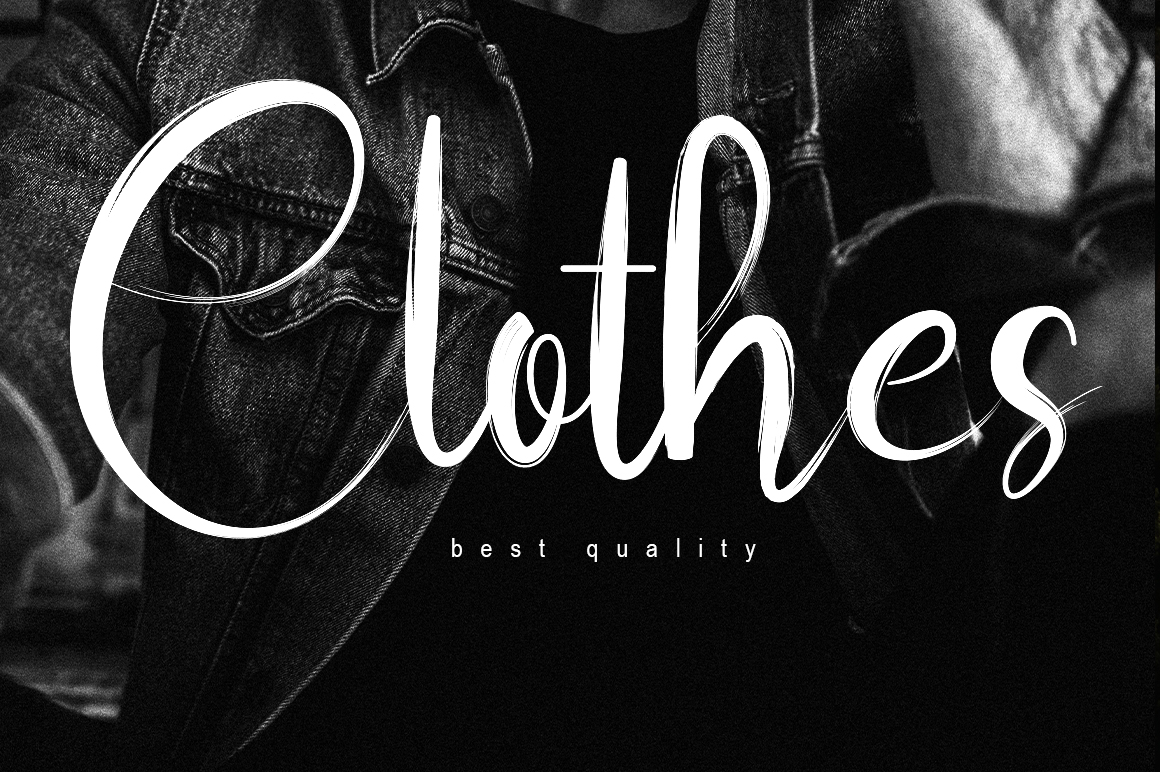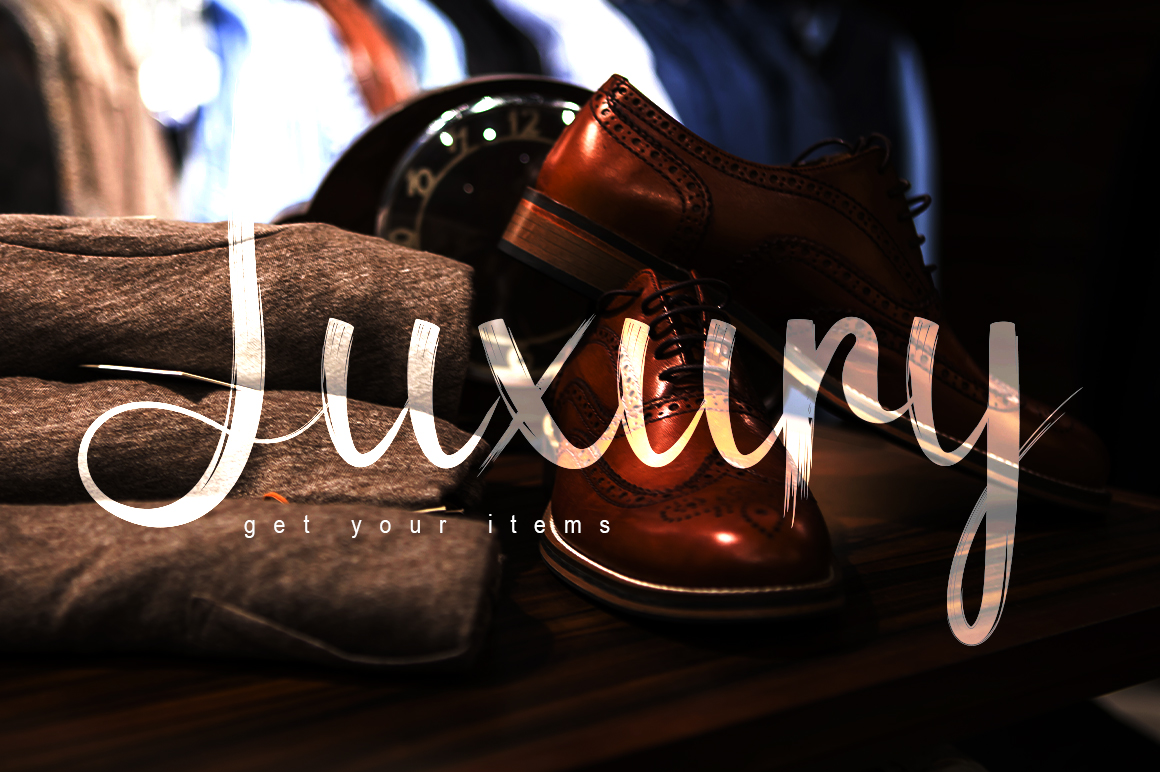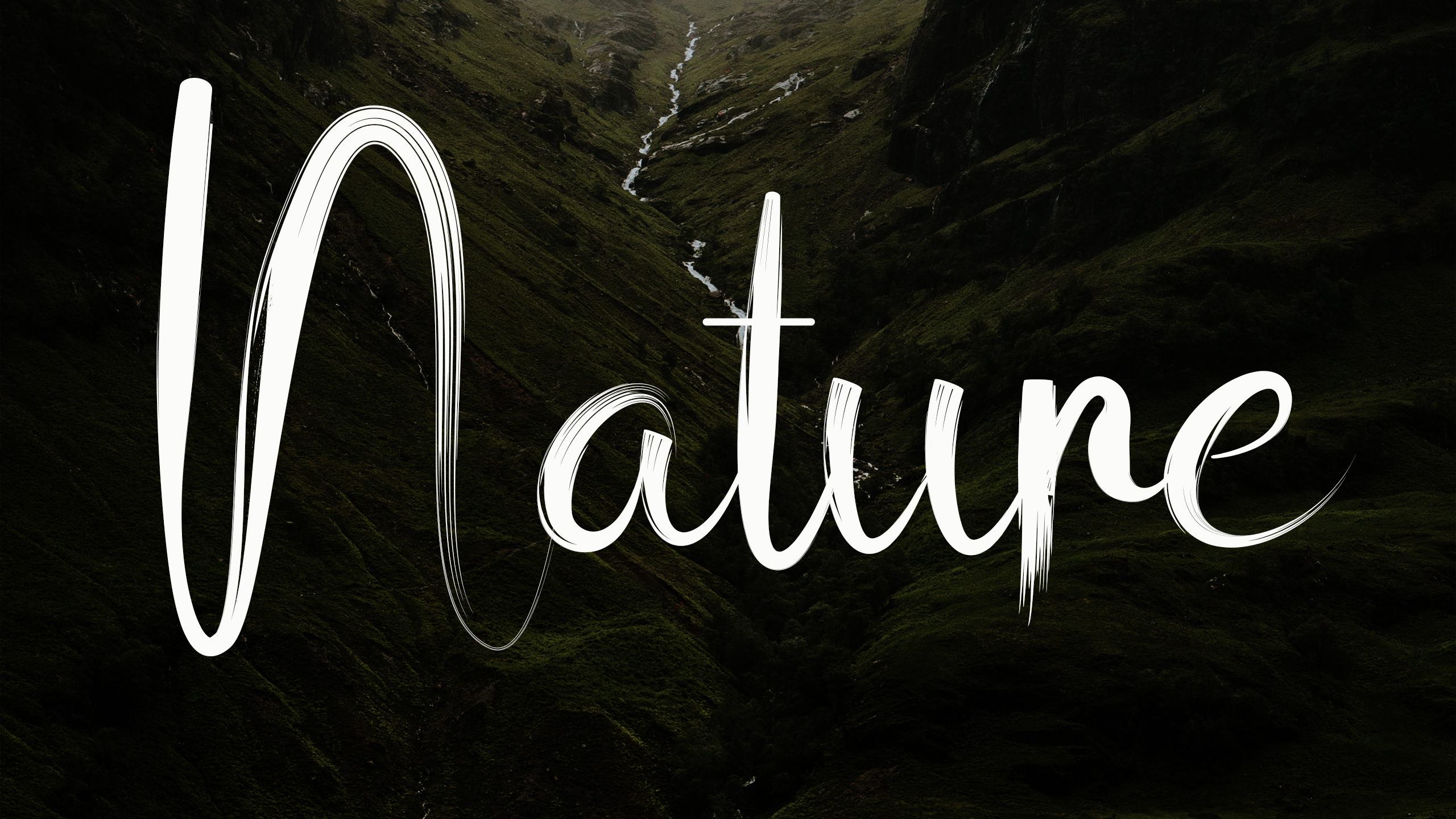
Dustiest Script Font
This is an enchanting handwritten font. This versatile script font has a wide spectrum of applications ranging from greeting cards to headlines and is guaranteed to add a romantic feel to your next project.